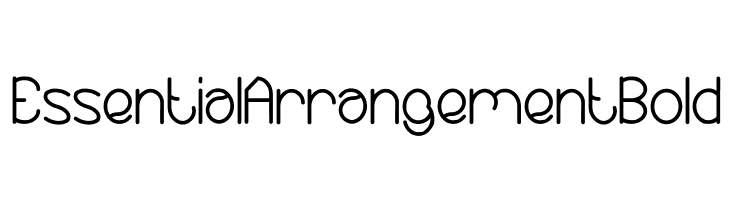
A sleek, minimalist font with thin lines and geometric shapes.
A modern, geometric sans-serif font with clean lines and uniform strokes.
A modern, minimalist font with thin, consistent strokes and geometric curves.
A modern, minimalist font with thin lines and rounded edges.
A modern, rounded font with consistent stroke width and geometric shapes.